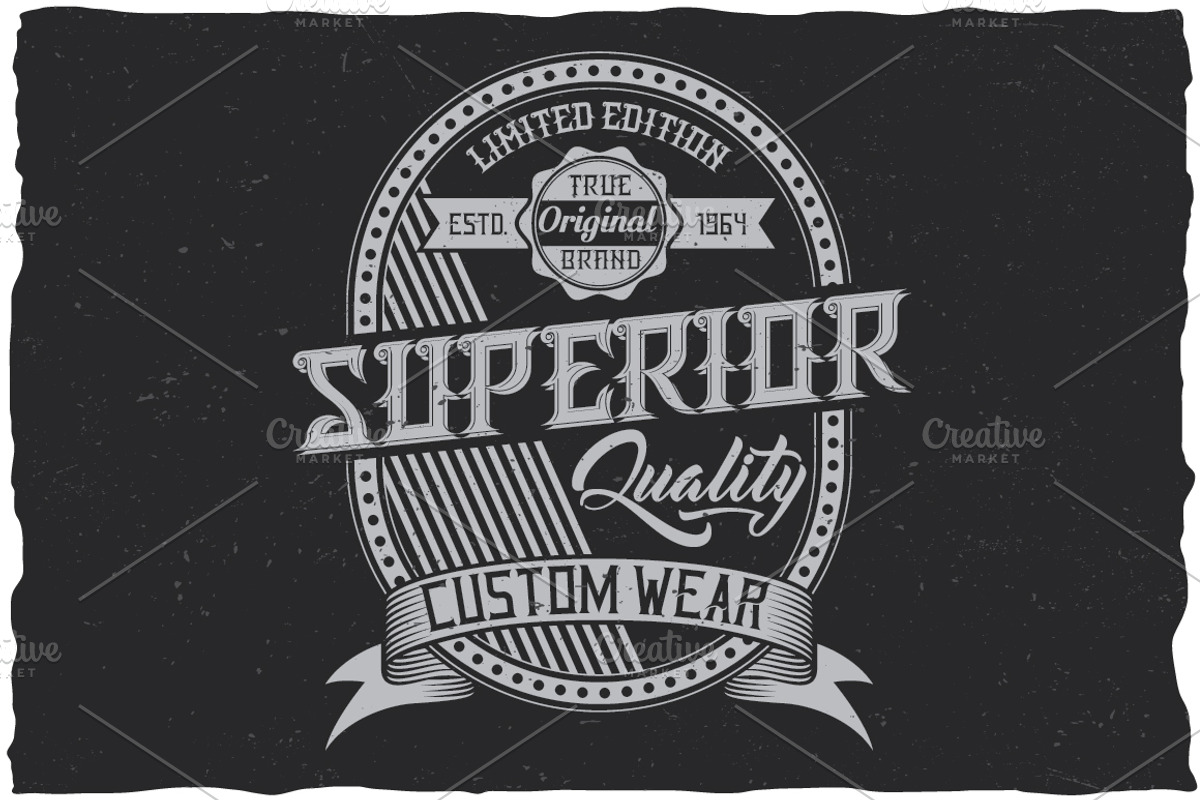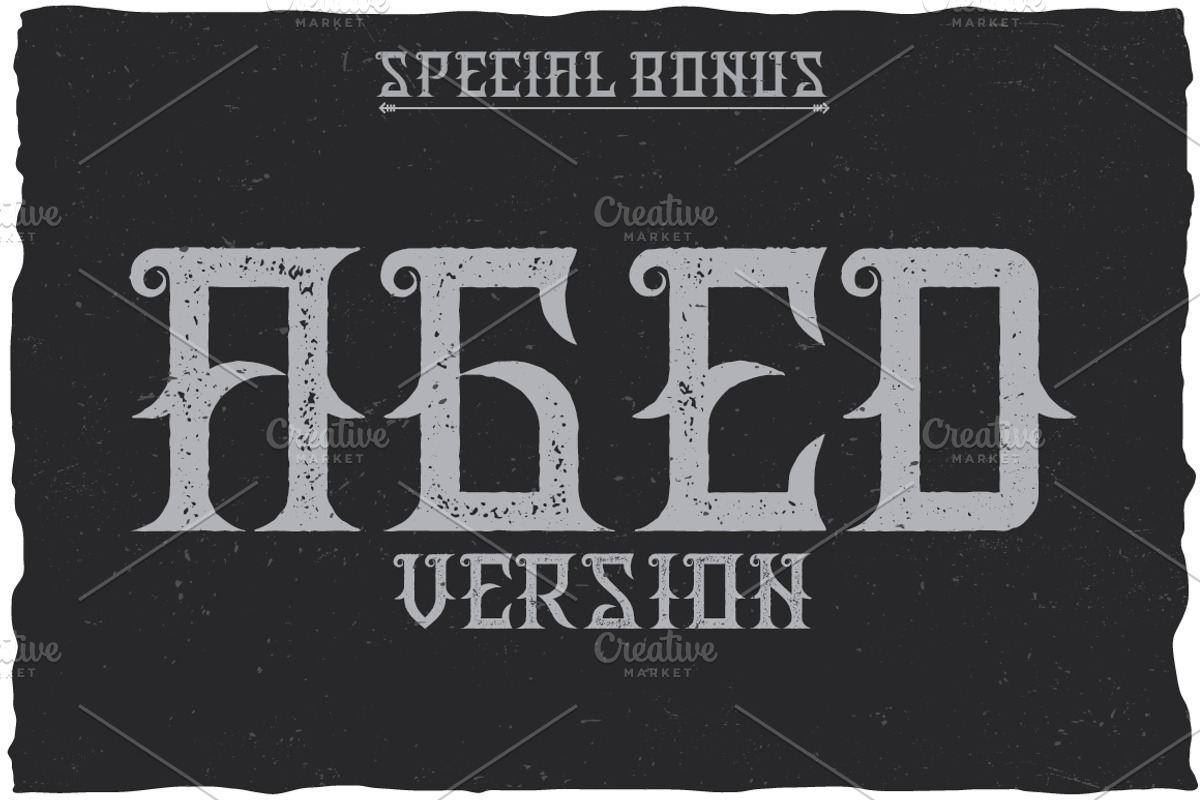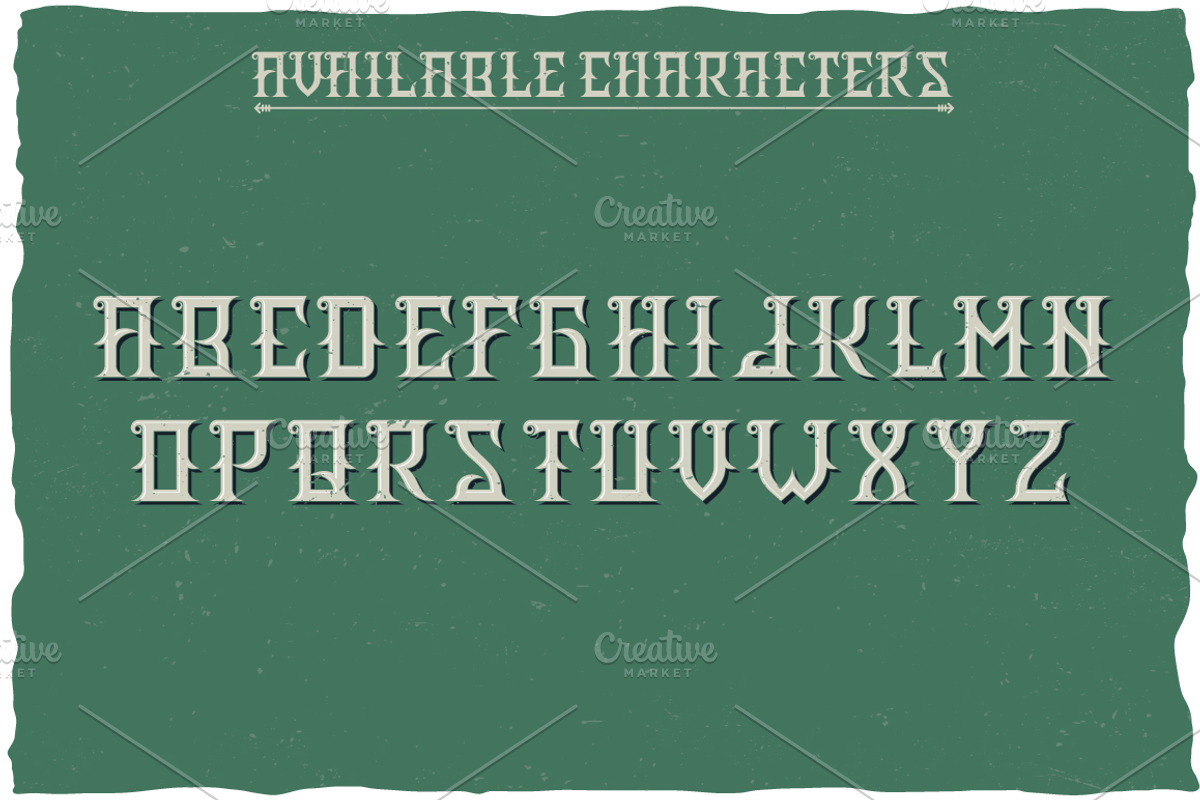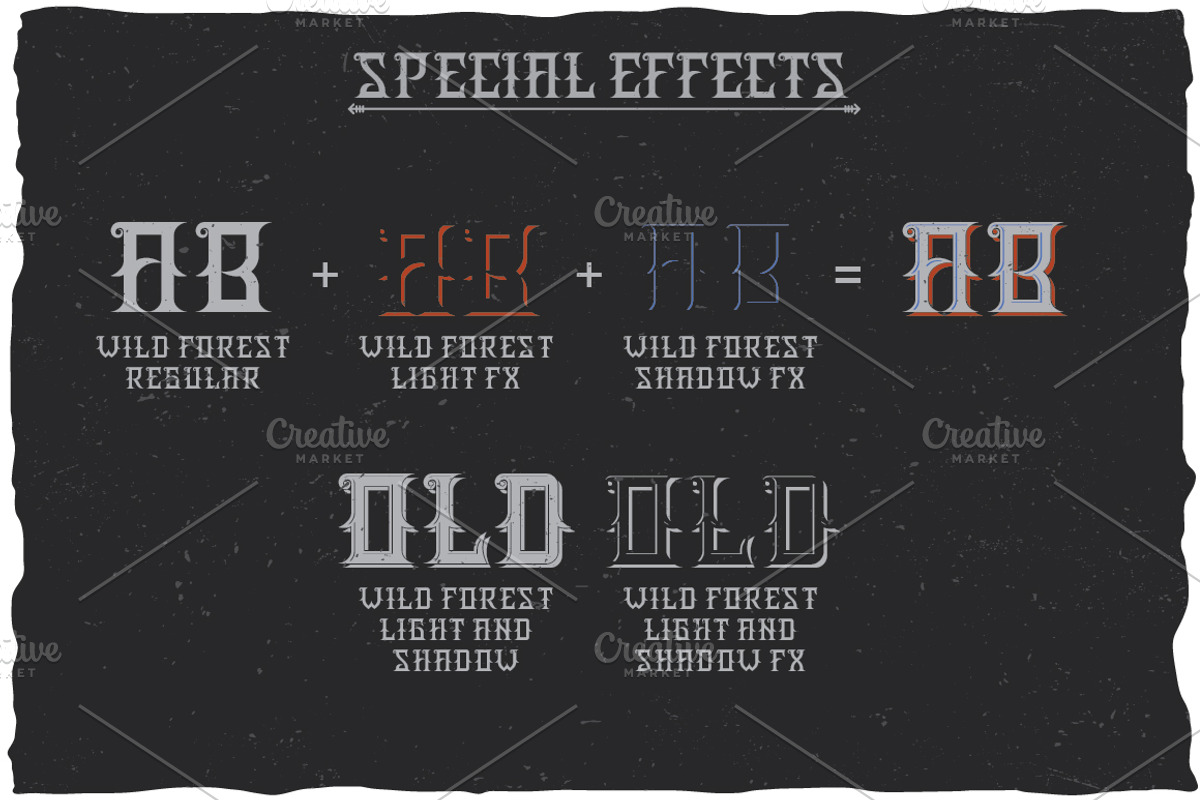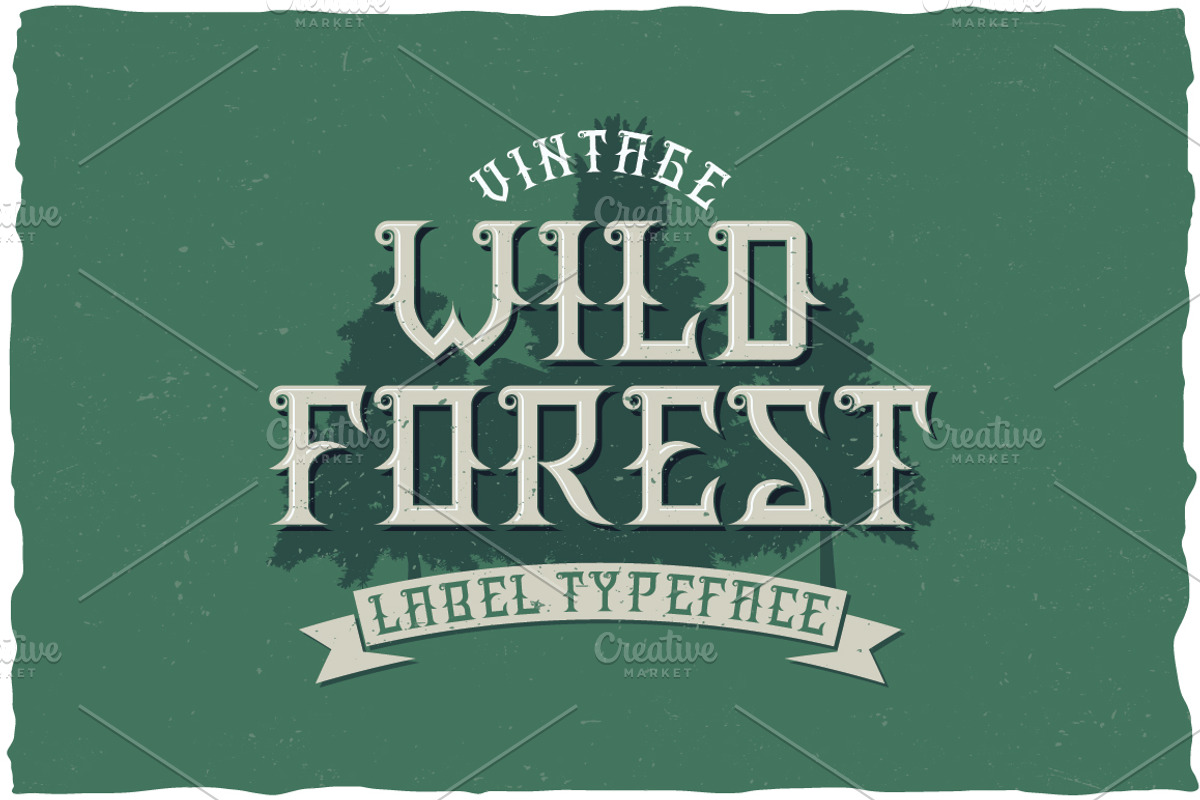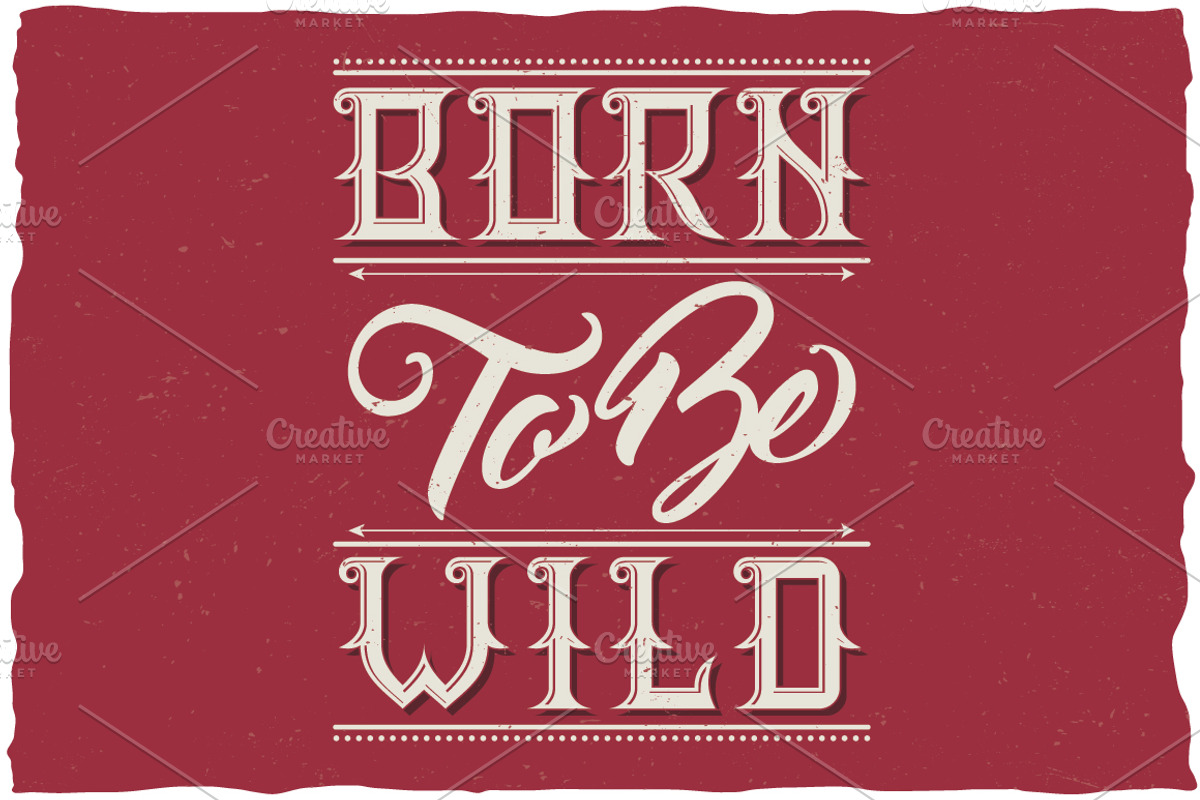
WildForest Vintage Label Typeface
Here is a classic look label typeface named "WildForest". It's made in vintage label style. Font is perfect for any labels design.
- 6 styles of font, named WildForest Aged, WildForest LightAndShadow, WildForest LightAndShadowFX, WildForest LightFX, WildForest Regular, WildForest ShadowFX.
- You can mix these styles how do you like. Because in complect are included additional fonts - WildForest LightAndShadowFX, WildForest LightFX, WildForest ShadowFX. For example: type your phrase in Regular, copy and past at same position and change font to Shadow FX. Copy and paste at the same position and change font to Light FX. You will get WildForest font with shadow and light effect! And you can change color of each element!